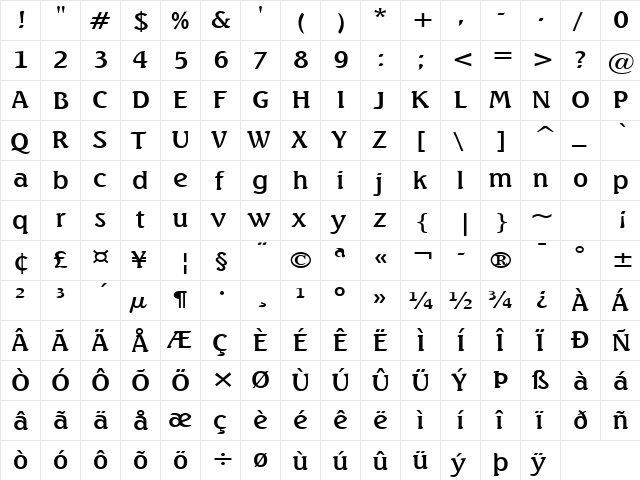
Beach-Extended Normal
Design Context for Beach-Extended Typeface
Beach-Extended takes a measured approach to typography — its balanced proportions and neutral character make it a reliable workhorse for both digital and print work.
Pro Tip: Pair Beach-Extended with a font of contrasting weight or personality to build a more expressive typographic hierarchy.